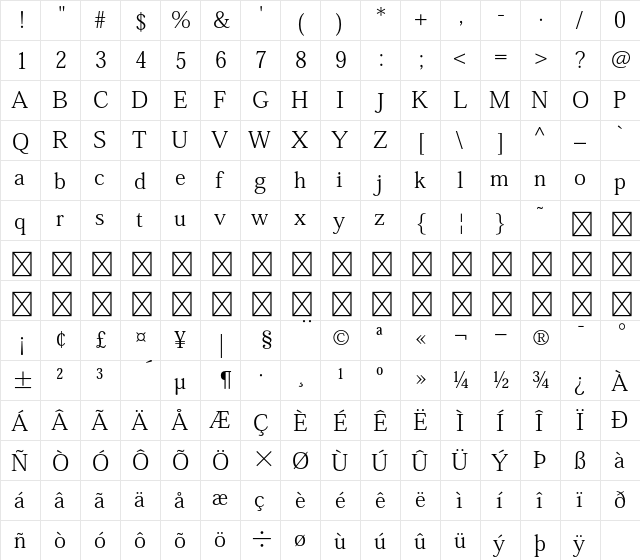
Heisei Mincho Std W3
Design Context for Heisei Mincho Std Typeface
Heisei Mincho Std offers clean, dependable letterforms without strong stylistic allegiance, making it a practical choice for designers who need flexibility.